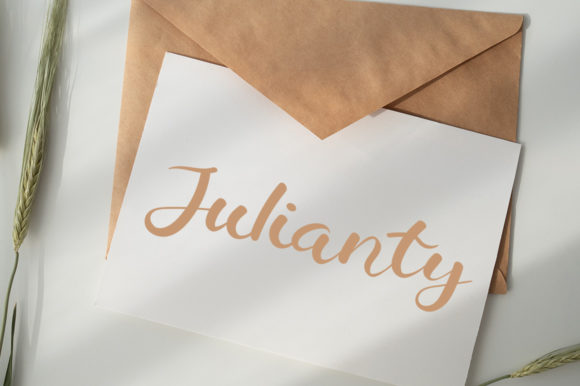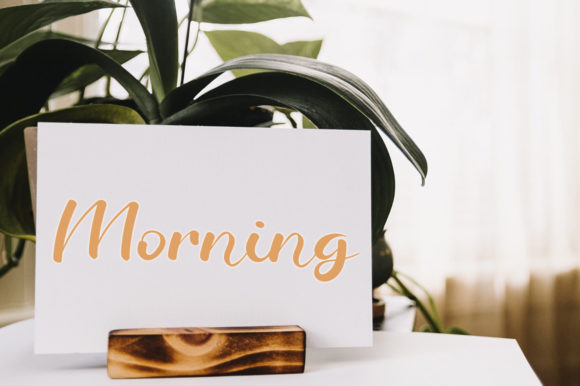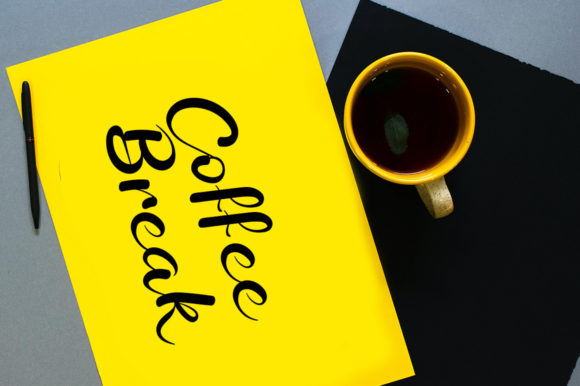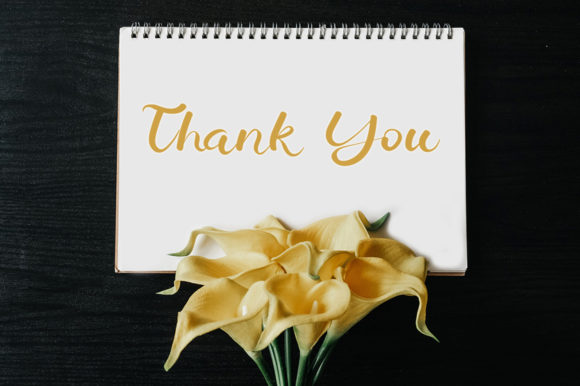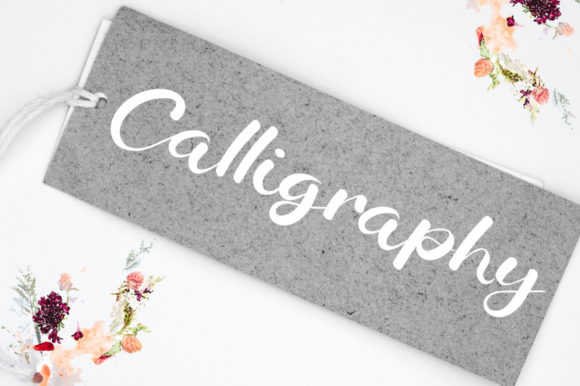
Elevate Your Designs with the Elegant Calligraphy Font
Are you a designer or crafter looking for a font that exudes elegance and sophistication? Look no further than the Calligraphy Font. This beautiful and sweet script font is perfect for adding a touch of refinement to your projects, whether formal or informal. With its fresh, clean, and elegant design, Calligraphy Font is sure to impress.
What is Calligraphy Font?
Calligraphy Font is a type of script font that mimics the art of calligraphy, a traditional style of handwriting that emphasizes beautiful lettering and flowing strokes. This font is designed to replicate the look and feel of hand-written calligraphy, with each letter and word flowing seamlessly into the next. The result is a font that is both elegant and eye-catching.
Characteristics of Calligraphy Font
So, what makes Calligraphy Font so special? Here are just a few of its key characteristics:
- Fresh and Clean: Calligraphy Font has a modern and fresh feel, making it perfect for designs that require a clean and contemporary look.
- Elegant and Sophisticated: With its flowing strokes and beautiful lettering, Calligraphy Font exudes elegance and sophistication, making it perfect for formal projects.
- Versatile: Calligraphy Font can be used in a wide range of projects, from wedding invitations and formal events to branding and advertising.
- Easy to Read: Despite its elegant design, Calligraphy Font is still easy to read, making it perfect for body text and headlines.
Uses for Calligraphy Font
So, what can you use Calligraphy Font for? The possibilities are endless! Here are just a few ideas to get you started:
- Wedding Invitations: Add a touch of elegance to your wedding invitations with Calligraphy Font.
- Branding and Advertising: Use Calligraphy Font to create beautiful and sophisticated branding and advertising materials.
- Stationery: Create beautiful stationery, including letterheads, business cards, and thank-you cards.
- Signage: Use Calligraphy Font to create eye-catching signage for events, businesses, and more.
Tips for Using Calligraphy Font
Here are a few tips for getting the most out of Calligraphy Font:
- Use it Sparingly: While Calligraphy Font is beautiful, it can be overwhelming if used too much. Use it sparingly to add emphasis and elegance to your designs.
- Pair it with Other Fonts: Calligraphy Font pairs well with a variety of other fonts, including sans-serif and serif fonts.
- Experiment with Colors: Calligraphy Font looks beautiful in a variety of colors, from classic black and white to bold and bright hues.
In conclusion, Calligraphy Font is a beautiful and elegant script font that is perfect for designers and crafters looking to add a touch of sophistication to their projects. With its fresh, clean, and elegant design, Calligraphy Font is sure to impress. Whether you’re creating wedding invitations, branding materials, or signage, Calligraphy Font is a versatile and eye-catching choice.